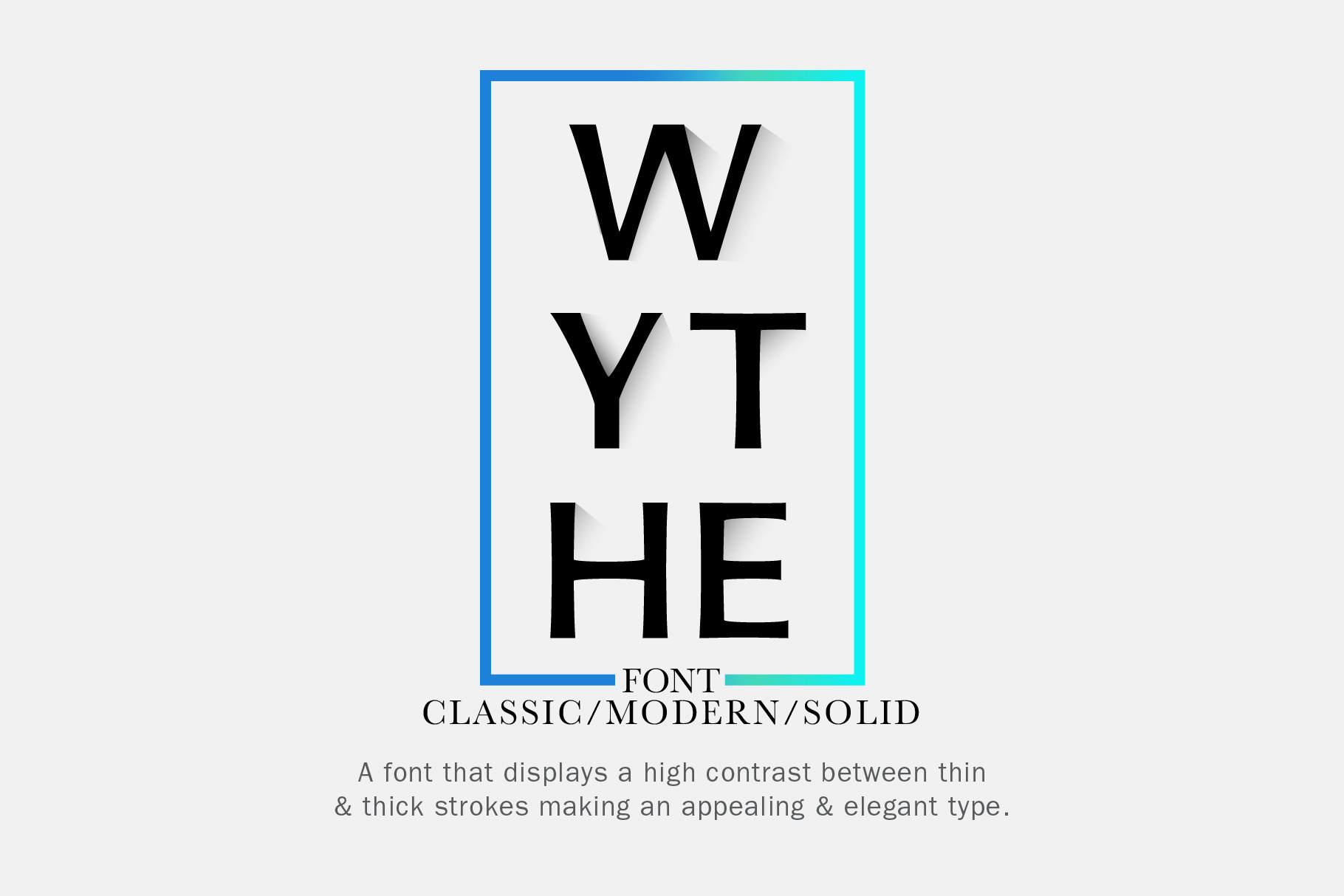
Wythe | Sans-Serif Font
Wythe | 2019 Sans Serif font Inspired by classical Roman capitals. Wythe font is a Humanist sans-serifs typeface. A font That displays a high contrast between thin and thick strokes making an appealing and elegant type. This Font family comes in 3 weights (Light, Regular, and Bold) Great for web design, logo projects and more.
- Uppercase letters
- Punctuations Marks